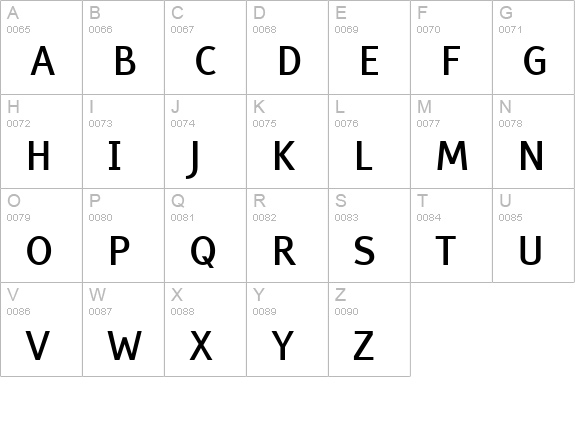
Tiresias PCfont Z Font Details
Tiresias PCfont Z font is a remarkable typeface that combines elegance with readability, making it an ideal choice for various design projects. Its sleek and modern design is expertly crafted to enhance legibility on both print and digital platforms. The Tiresias PCfont Z font offers a unique blend of classic and contemporary elements, resulting in a versatile typeface that can be used for a wide range of applications. One of the most appealing aspects of Tiresias PCfont Z font is that it is freely available to download at FontsMarket.com. This means that designers, creatives, and enthusiasts can effortlessly access this exceptional font without any cost, making it an excellent choice for projects with budget constraints. The availability of Tiresias PCfont Z font as a free download allows designers to explore its capabilities and experiment with various typography ideas without any financial limitations. Whether you are designing a website, creating a logo, or working on a print project, Tiresias PCfont Z font will undoubtedly elevate your design to new heights. Its clean lines and balanced proportions ensure optimal readability, even at small sizes, while still maintaining an air of sophistication. With Tiresias PCfont Z font, your typography will effortlessly communicate your message, capturing the attention of your audience and leaving a lasting impression. Download Tiresias PCfont Z font for free at FontsMarket.com and unlock a world of design possibilities. Experience the seamless blend of style and functionality, all wrapped up in a typeface that is both visually appealing and easy to read. Don't let budget constraints limit your creativity - with Tiresias PCfont Z font, you can create stunning designs without breaking the bank. Embrace the freedom to design and download Tiresias PCfont Z font today!